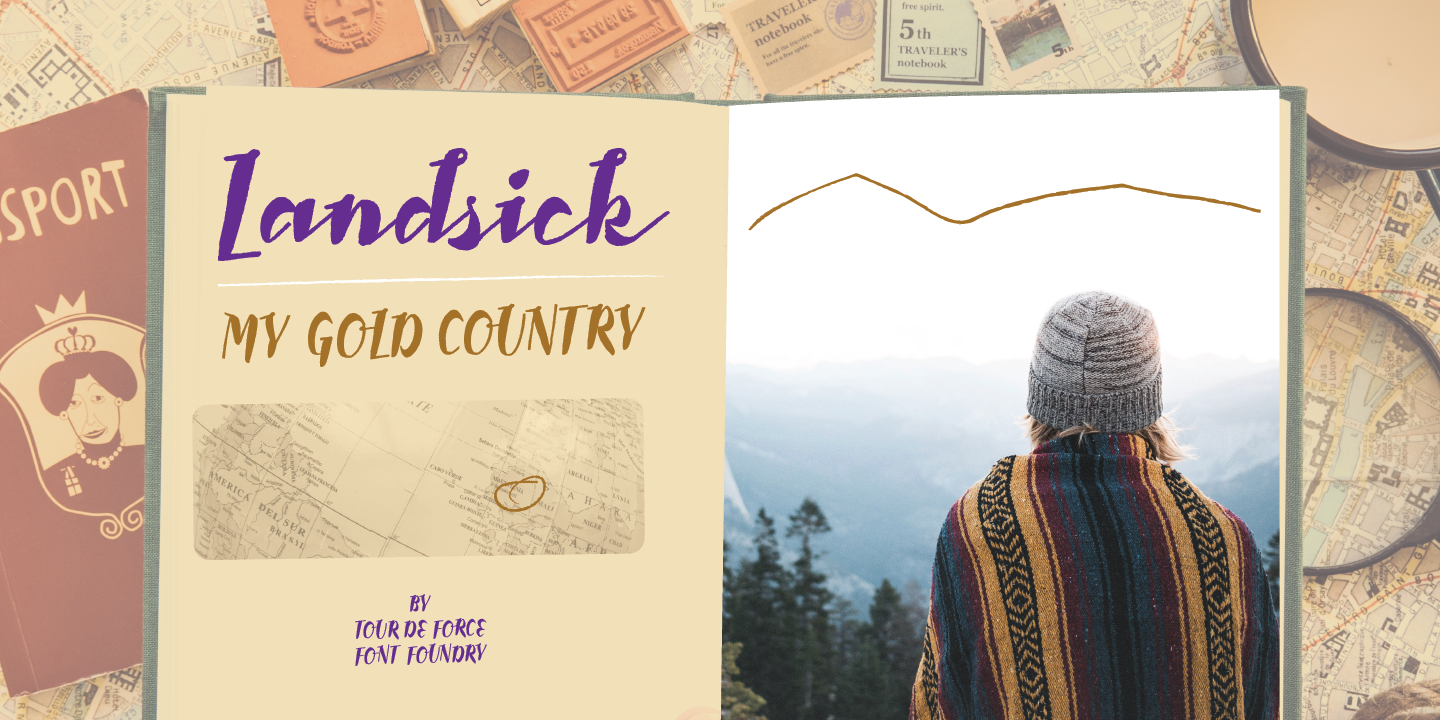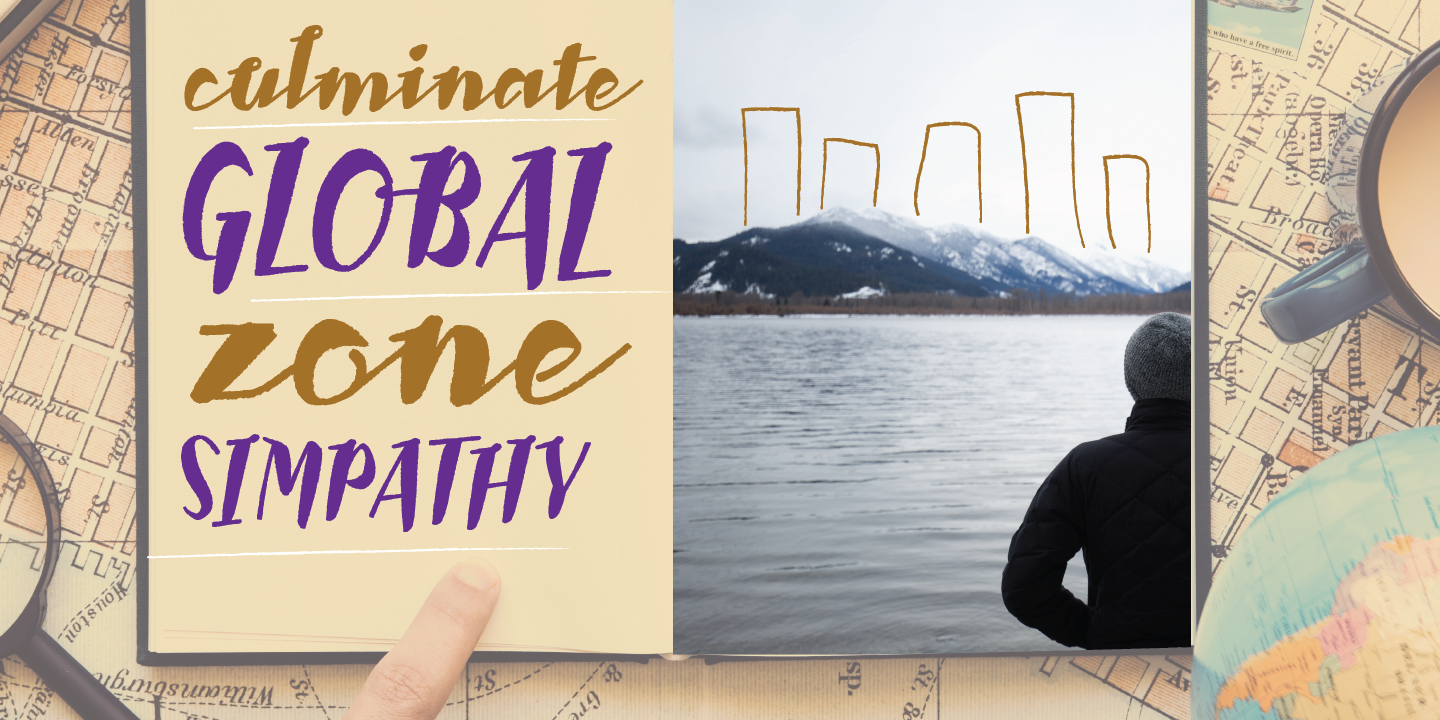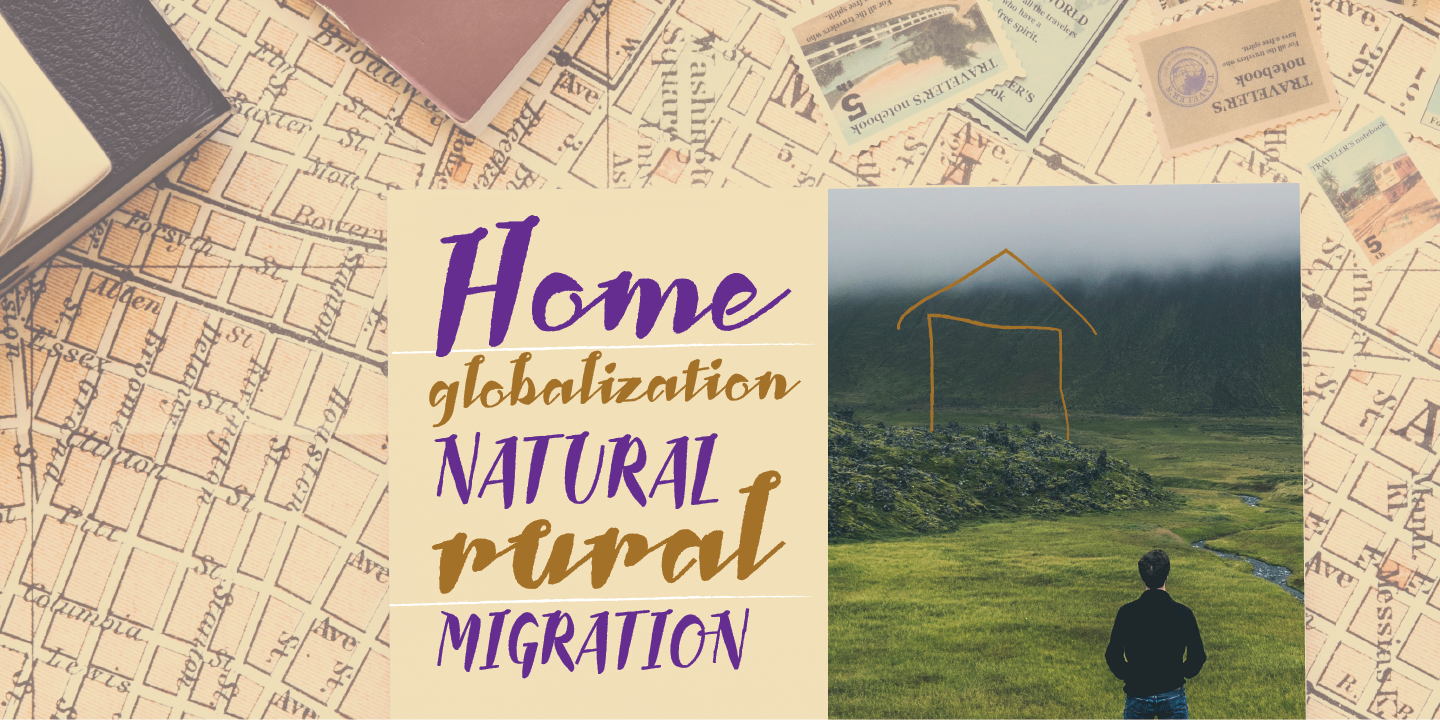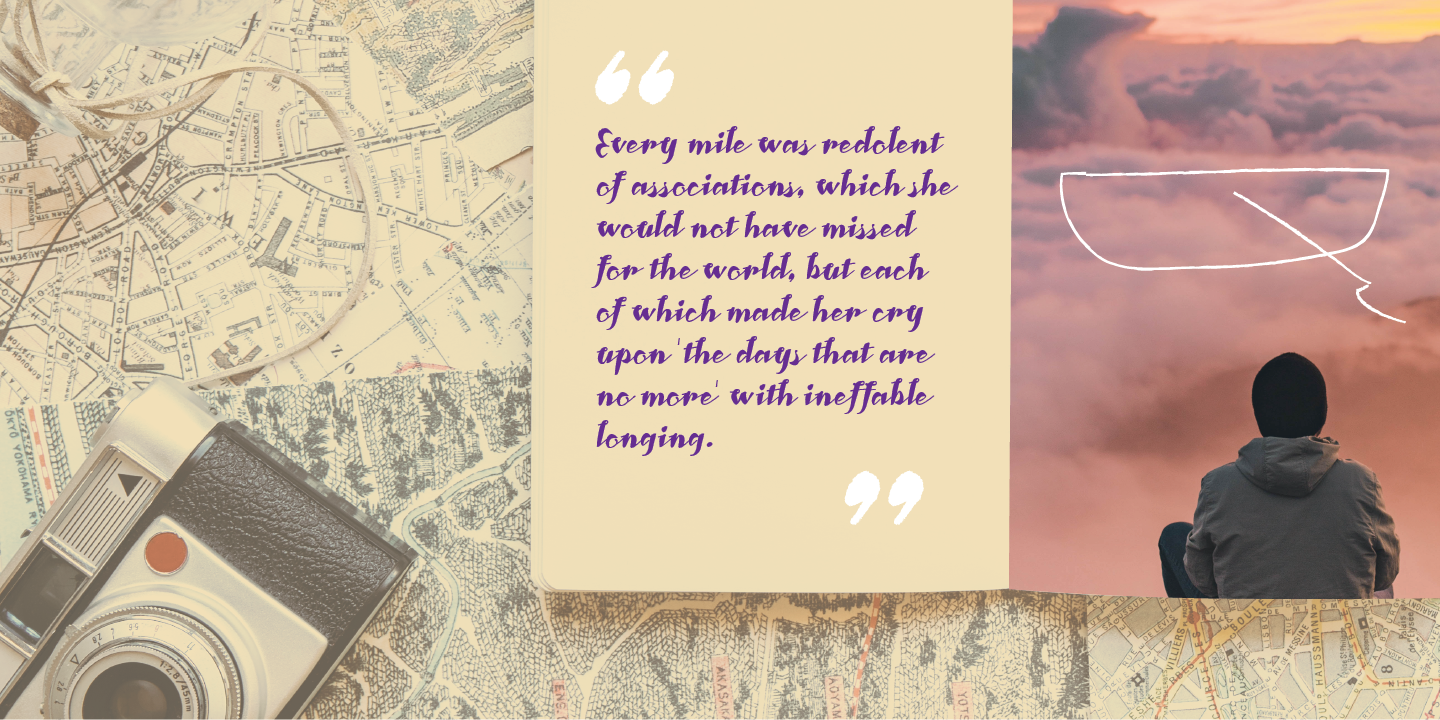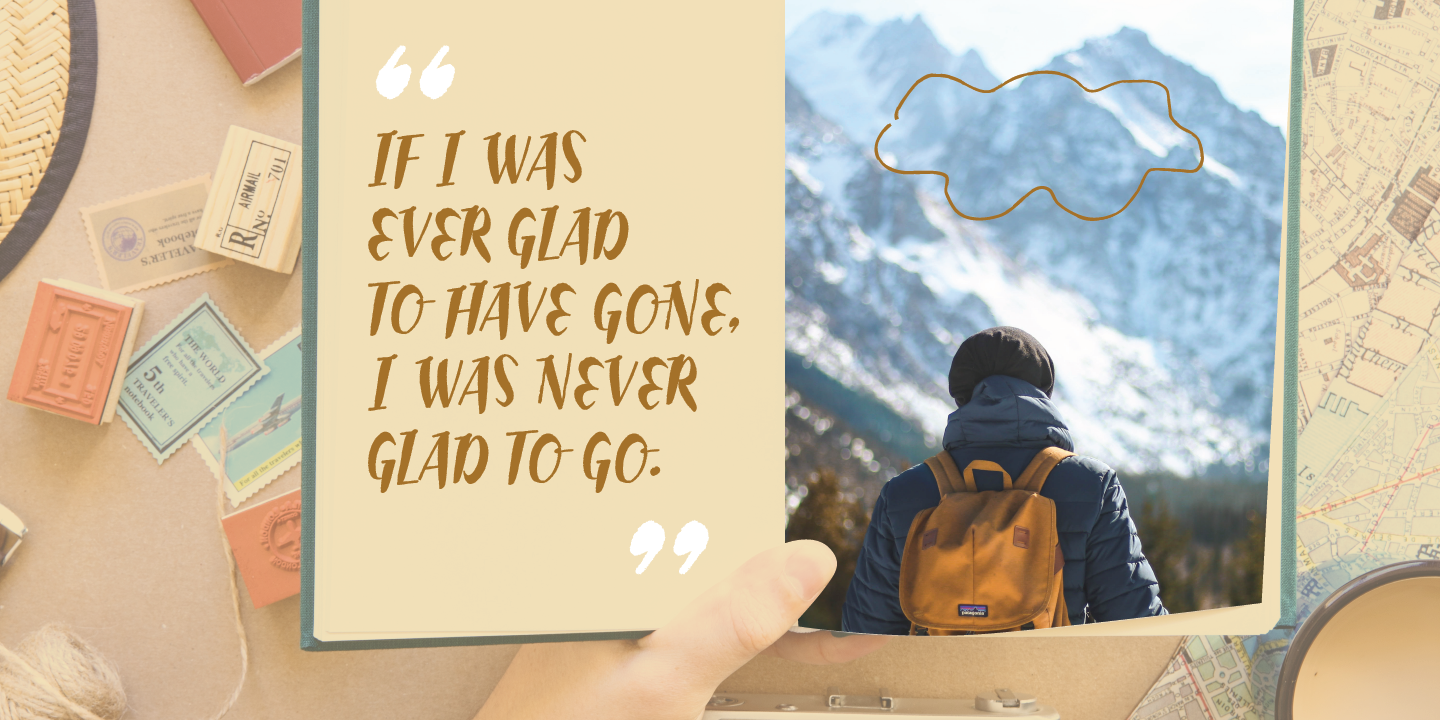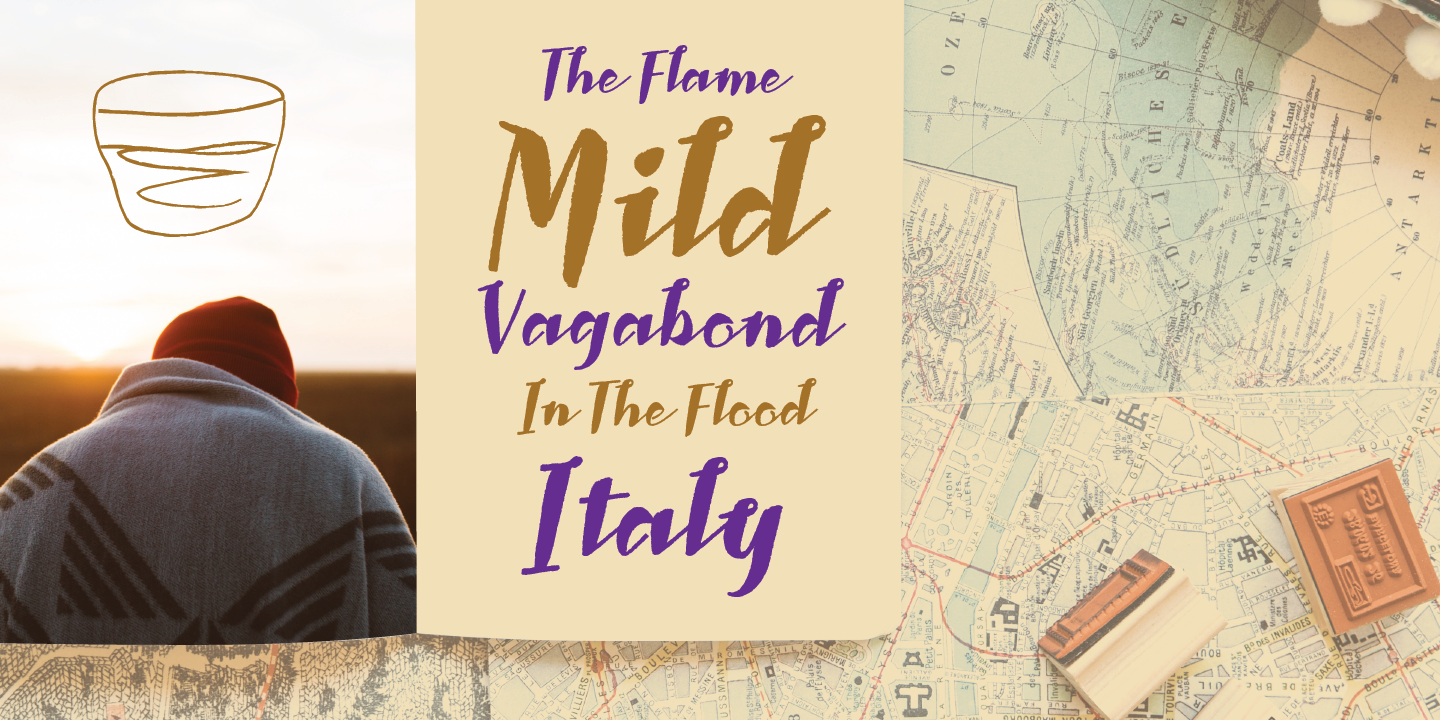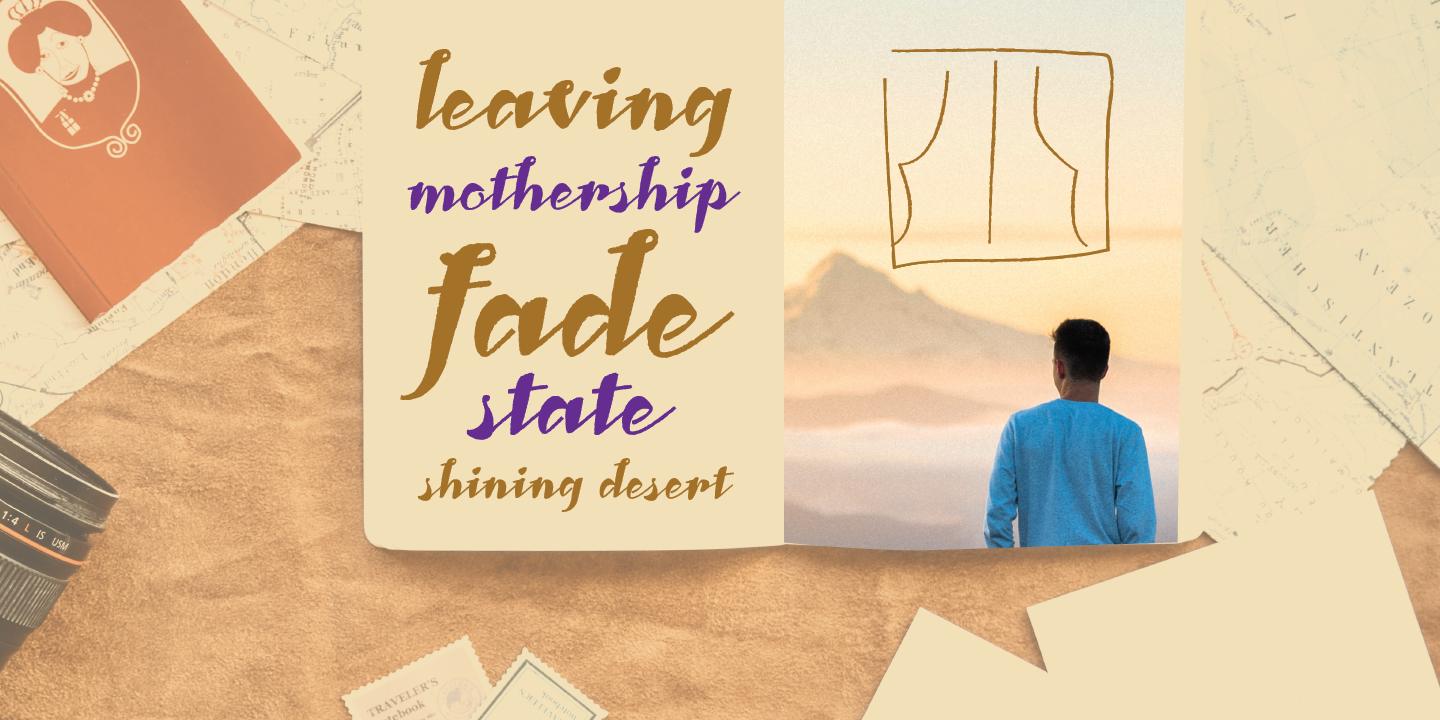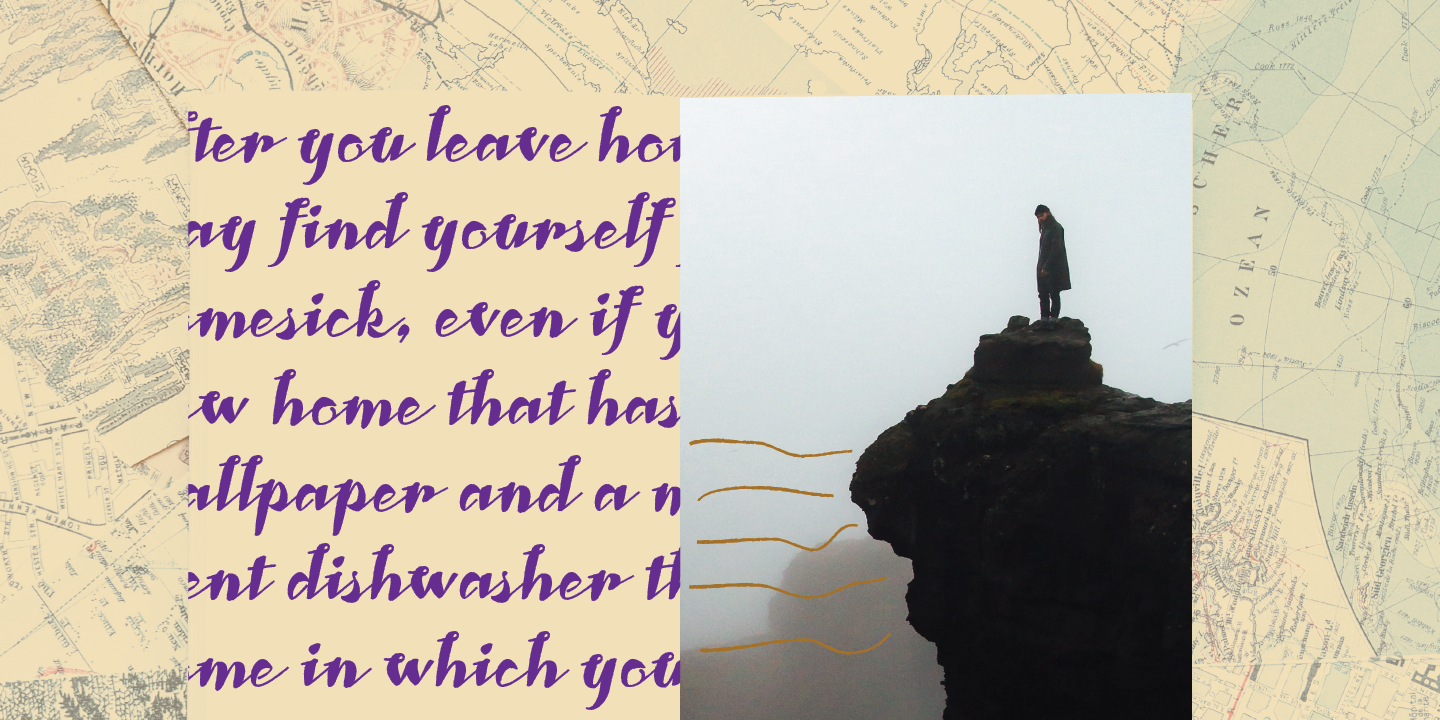
Landsick Font
About Landsick Font
Landsick is single weight script family. It’s charming, it’s characteristic, it’s lively and playful. Ready to be used everywhere.